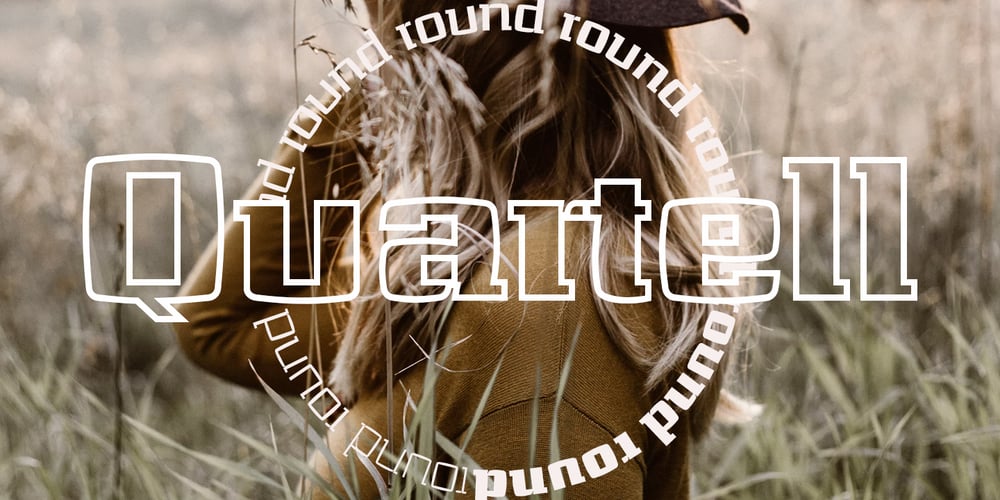
Quartell Round
Quartell Round font
Quartell Round Font Family was designed by Andriy Dykun and published by NREY. Quartell Round contains 20 styles and family package options. Hello! Introducing Quartell – modern display typeface family.Font looks amazing as alone words and as full text blocks. Also it good for bright captions and unforgettable logosIt have supporting for many languages as: Czech, Danish and Norwegian, Deutsch, English, Espanol, French, Italiano, Magyar, Nederlands, Polish, Portuguese, Finnish, Swedish, Turkish, Russian and other based on extended latin.Thank you for purchasing and happy designing 🙂